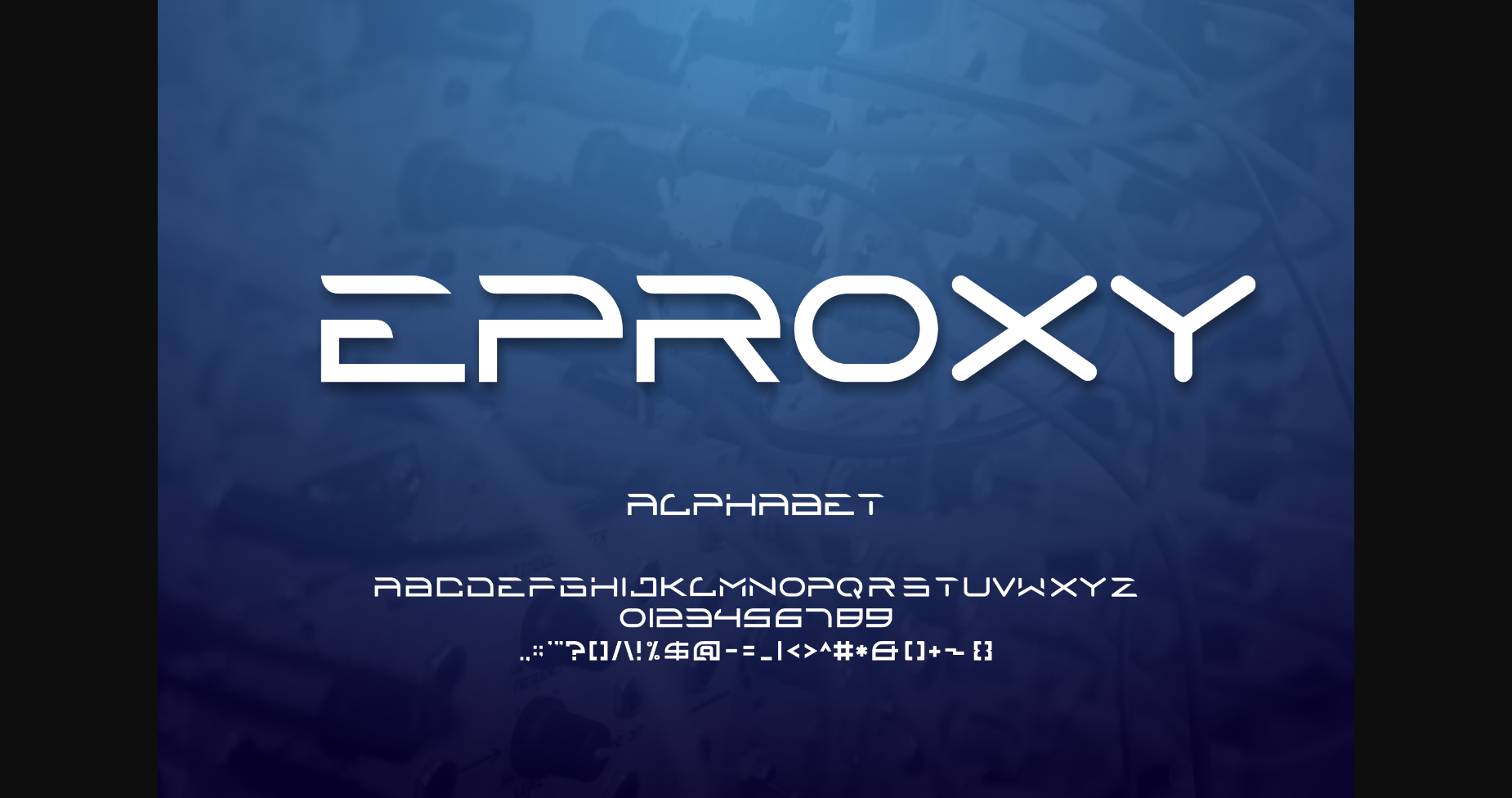
About Eproxy Font
Introducing A new product **Eproxy Font** – Modern Font
Eproxy is a thin and futuristic sans serif font suitable for any branding project like logo, t-shirt printing, export, and more. It looks outstanding in a wide range of contexts.